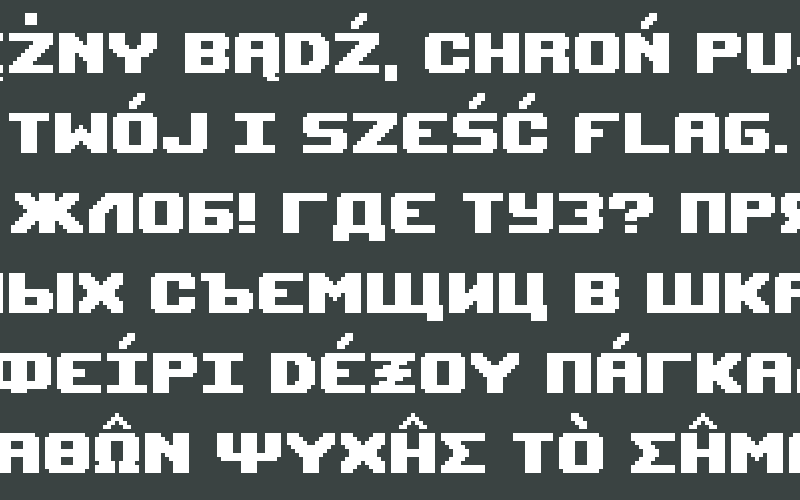
Font name: | Upheaval Pro |
Author: | Aleksandr Savenkov |
Note by Aleksandr Savenkov | |
Extended version of Upheaval by Brian Kent. Now with Cyrillic and Greek (including Extended Cyrillic and Polytonic Greek). I asked his permission for this and he said it's ok. Version 1.1: Now with Hebrew. |